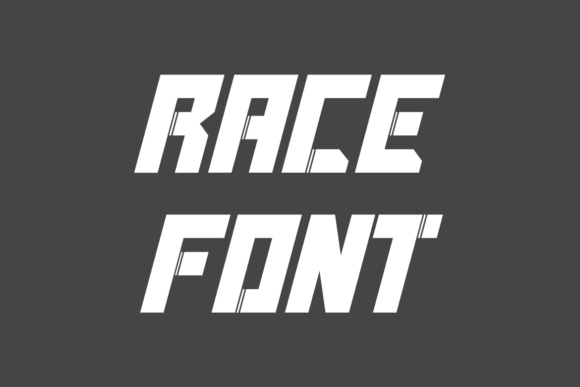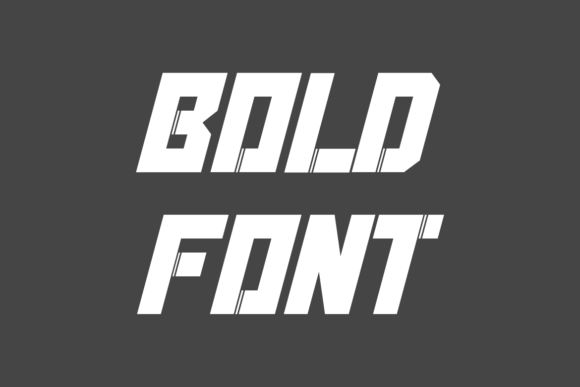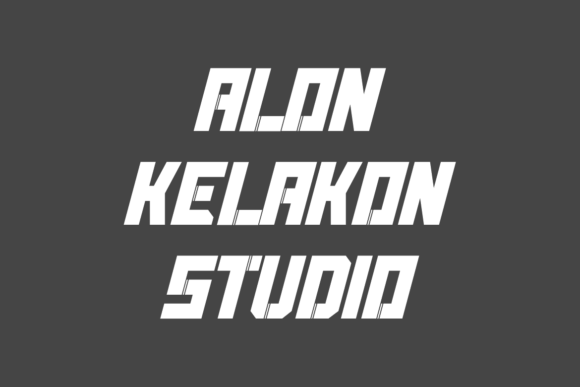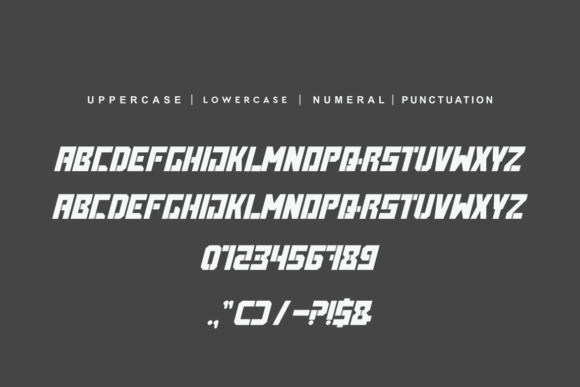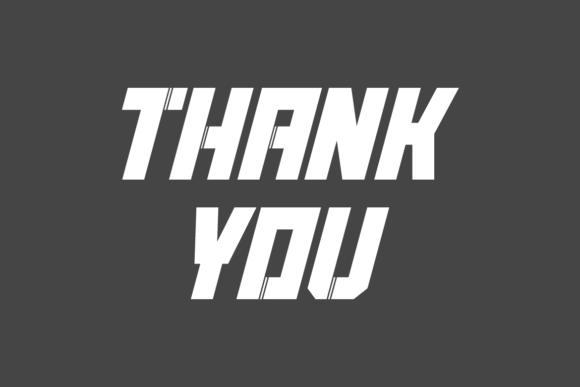
Introducing Fast Charging Font: The Ultimate Modern Sans Serif for Designers and Crafters
In the world of design, fonts play a crucial role in conveying the message and tone of a project. With the ever-evolving trends and styles, designers and crafters are constantly on the lookout for modern and versatile fonts that can elevate their work. If you’re a fan of sans serif fonts with a touch of trendiness, then you’re in luck! Meet Fast Charging Font, a bold and modern sans serif font that’s perfect for a wide range of design applications.
What is Fast Charging Font?
Fast Charging Font is a carefully crafted sans serif font that’s designed to make a statement. Its clean lines, precise curves, and balanced proportions make it a perfect choice for designers and crafters looking for a modern and edgy font. Whether you’re working on a digital design project, crafting a greeting card, or creating a presentation, Fast Charging Font is the perfect companion to help you achieve your creative goals.
Key Features of Fast Charging Font
- Modern Sans Serif Design: Fast Charging Font boasts a sleek and contemporary sans serif design that’s perfect for modern designs.
- Bold and Eye-catching: With its bold strokes and precise lines, Fast Charging Font is sure to grab attention and make your designs stand out.
- Versatile and Flexible: This font is perfect for a wide range of design applications, including digital designing, crafting, presentations, and greeting cards making.
- Easy to Read: Despite its bold design, Fast Charging Font is easy to read, making it perfect for body text and headings.
Use Cases for Fast Charging Font
Fast Charging Font is a versatile font that can be used in various design applications. Here are some use cases to get you started:
- Digital Designing: Use Fast Charging Font to create stunning social media graphics, blog posts, and website headers.
- Crafting: Add a modern touch to your craft projects, such as greeting cards, scrapbooking, and DIY tutorials.
- Presentations: Make your presentations more engaging and professional with Fast Charging Font.
- Greeting Cards Making: Create beautiful and modern greeting cards for special occasions.
Why Choose Fast Charging Font?
With so many fonts available, why choose Fast Charging Font? Here are some reasons to consider:
- Unique and Modern Design: Fast Charging Font offers a fresh and modern design that’s sure to make your designs stand out.
- High-quality and Precise: This font is carefully crafted with precise lines and curves, ensuring a high-quality design.
In conclusion, Fast Charging Font is a bold and modern sans serif font that’s perfect for designers and crafters looking for a versatile and trendy font. With its clean design, precise lines, and balanced proportions, this font is sure to elevate your designs and make them stand out. Whether you’re working on a digital design project, crafting a greeting card, or creating a presentation, Fast Charging Font is the perfect choice. So why wait? Download Fast Charging Font today and take your designs to the next level!